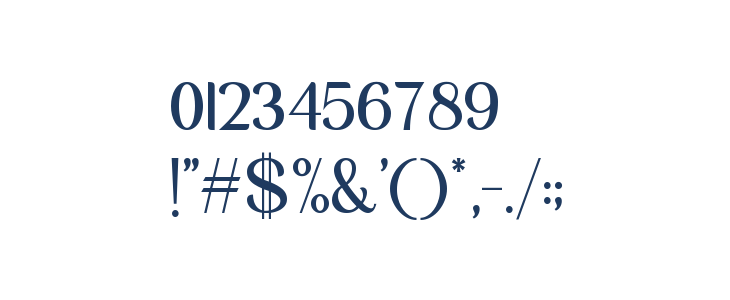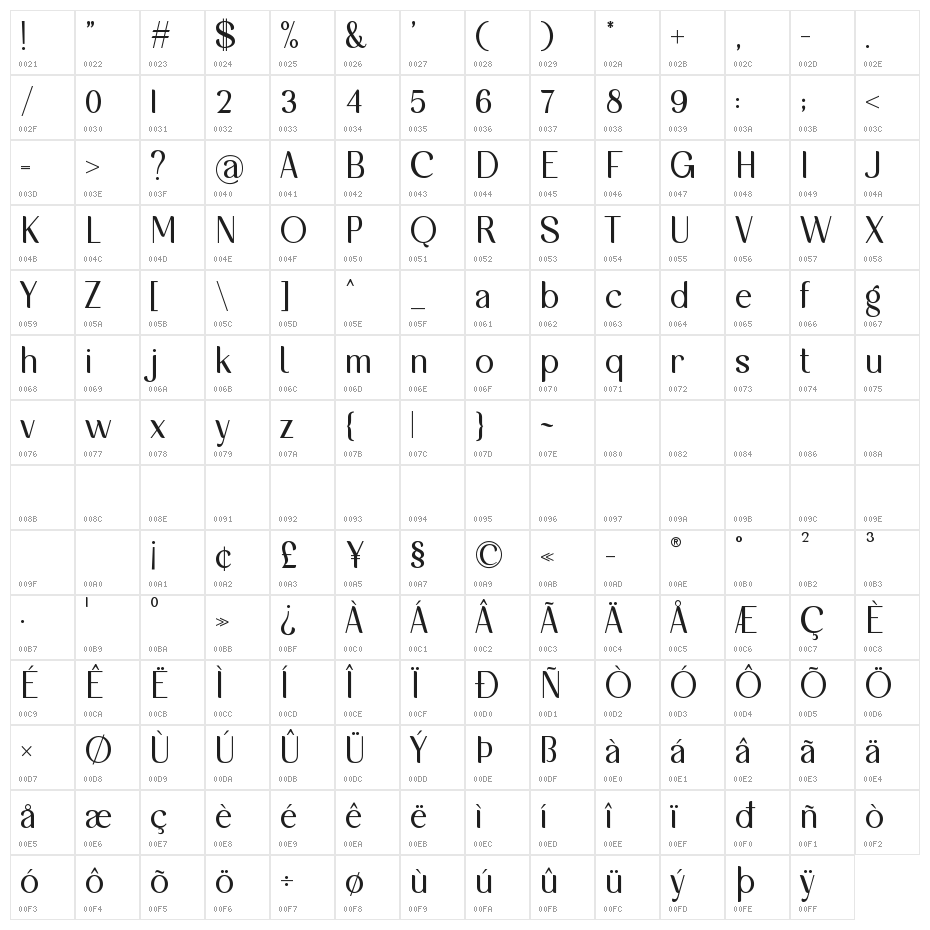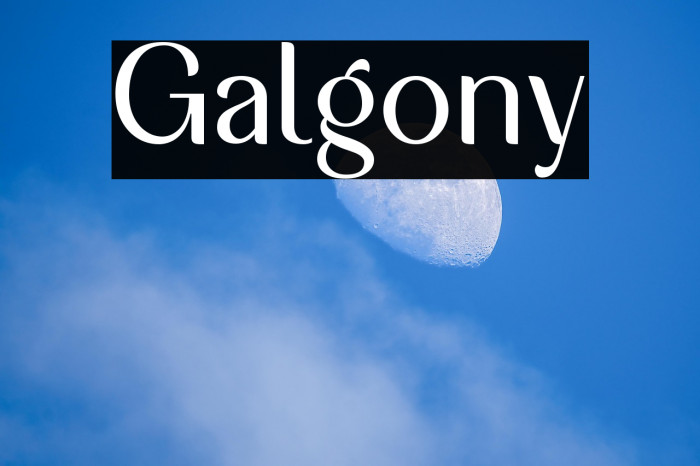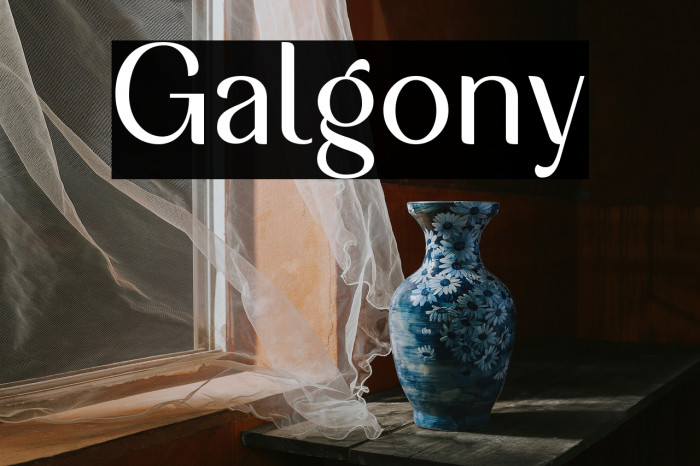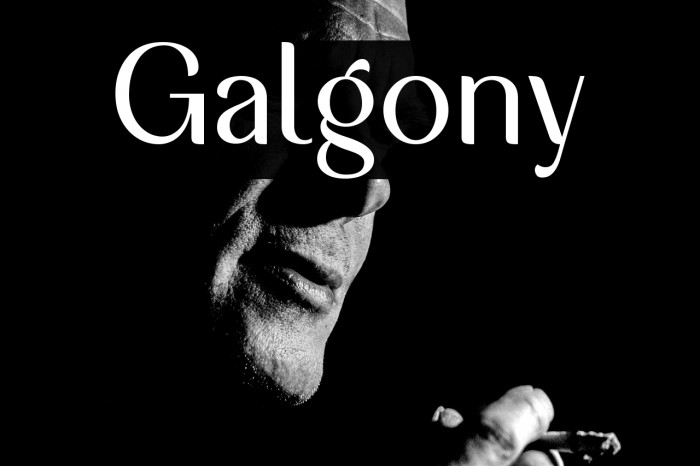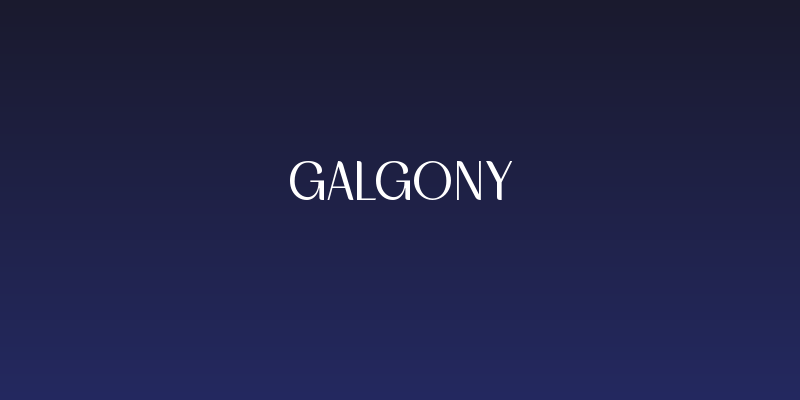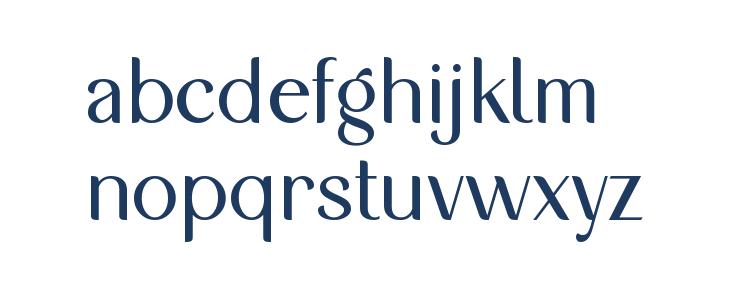
Galgony Font
This font exhibits a modern and elegant design, characterized by its clean lines and balanced proportions. The uppercase letters are tall and slightly condensed, giving a sophisticated appearance. The lowercase letters maintain a consistent style with smooth curves and a harmonious flow. The numerals are clear and legible, matching the overall aesthetic. Special characters are well-integrated, adding versatility to the font. The stroke contrast is medium, providing a subtle yet noticeable distinction between thick and thin lines. This font is suitable for a variety of applications, offering both readability and style.
| Use Case | Headlines, Body text, Logos |
| Proposed Projects | Ideal for branding, editorial design, advertising, and web design projects. |